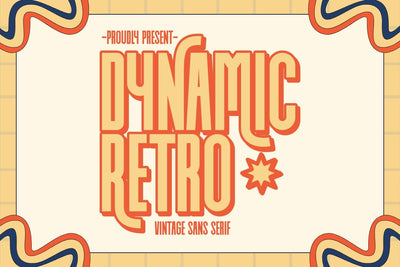
Dynamic Retro - Vintage Sans Serif Font
Dynamic Retro is a clean vintage sans serif font that perfect for all your Christmas design needs. With its classic retro style, this font ideal for creating festive quotes, apparel mockups, tote bags, mugs, Christmas cards and party invitations. Whether you're designing for social media or holiday events, This font adds a nostalgic and cheerful touch to any project.